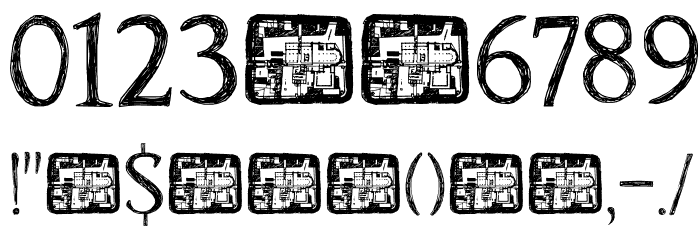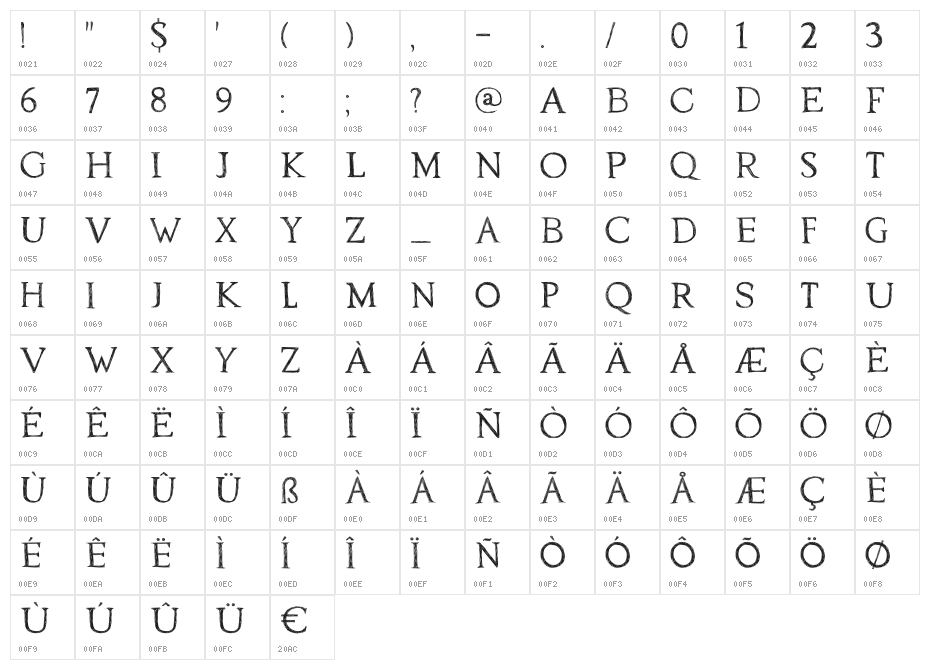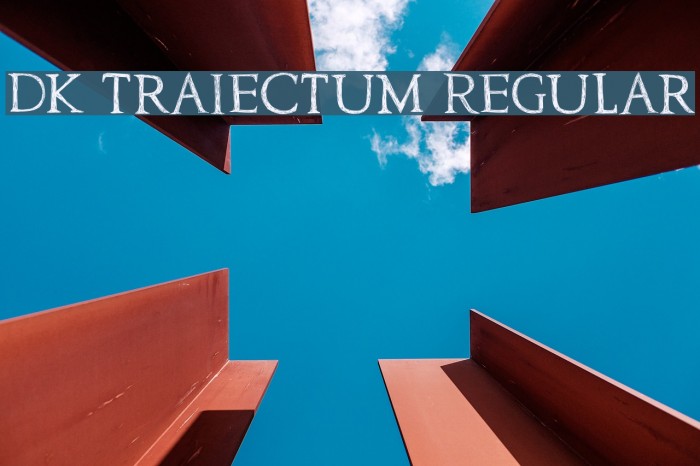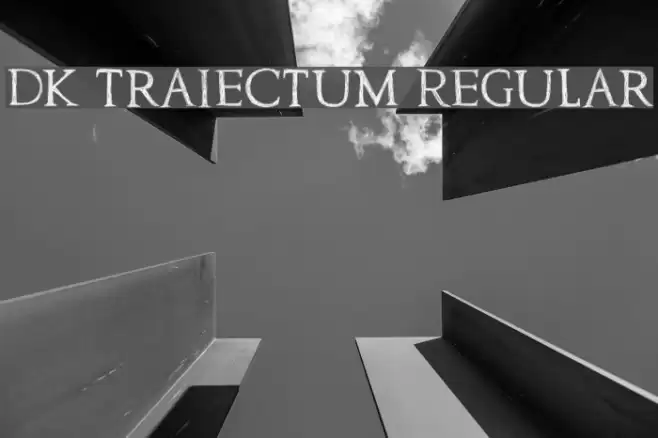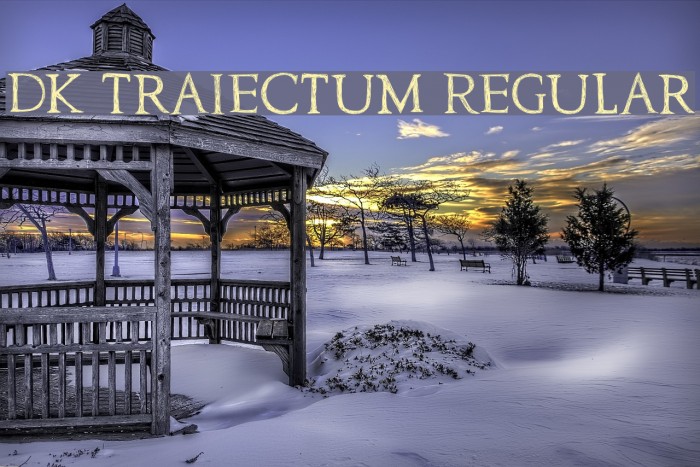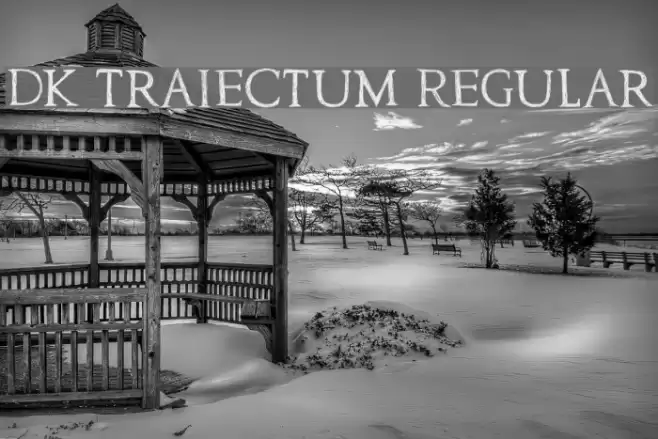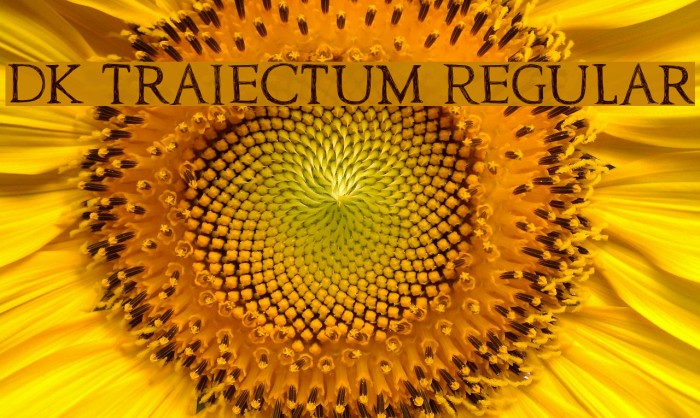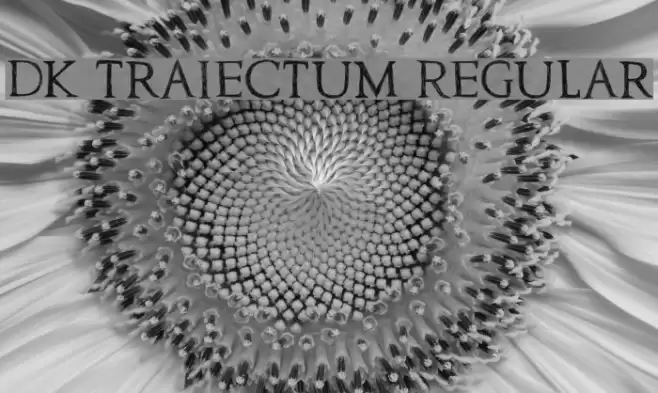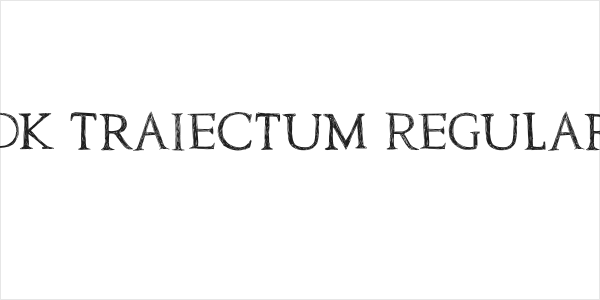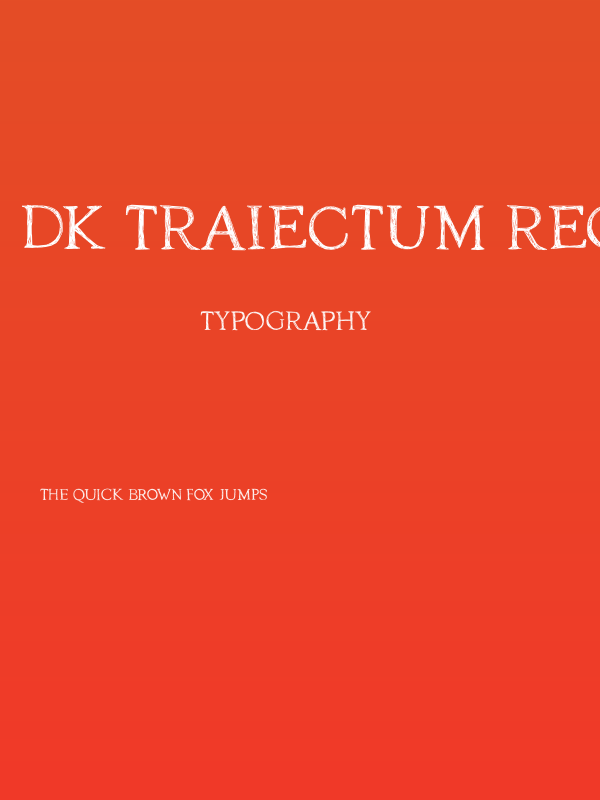
DK Traiectum Regular Font
DK Traiectum Regular Description
This font features a hand-drawn, textured style that gives it a rustic and vintage appearance. The characters are serifed, with uneven strokes that add a unique, artistic flair. The uppercase and lowercase letters maintain a consistent style, with slightly rough edges and a sketch-like quality. The numbers follow the same design, ensuring uniformity across the font. Special characters are included, matching the overall theme with their distinctive, handcrafted look. This font is ideal for projects that require a personal touch or an antique feel.
| Proposed Projects | Ideal for branding, packaging, invitations, and any design that benefits from a handcrafted, vintage aesthetic. |